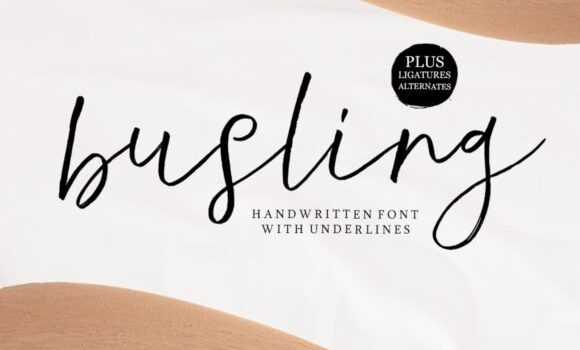
busling
Busling Font – Free Download Introduction to Busling Font Busling is a beautiful and light handwritten font with a unique feel and a stunning impact. 📸 Preview Gallery 6 images 📌 Product Name Busling Font 👤 Author Youngtype 📂 Category